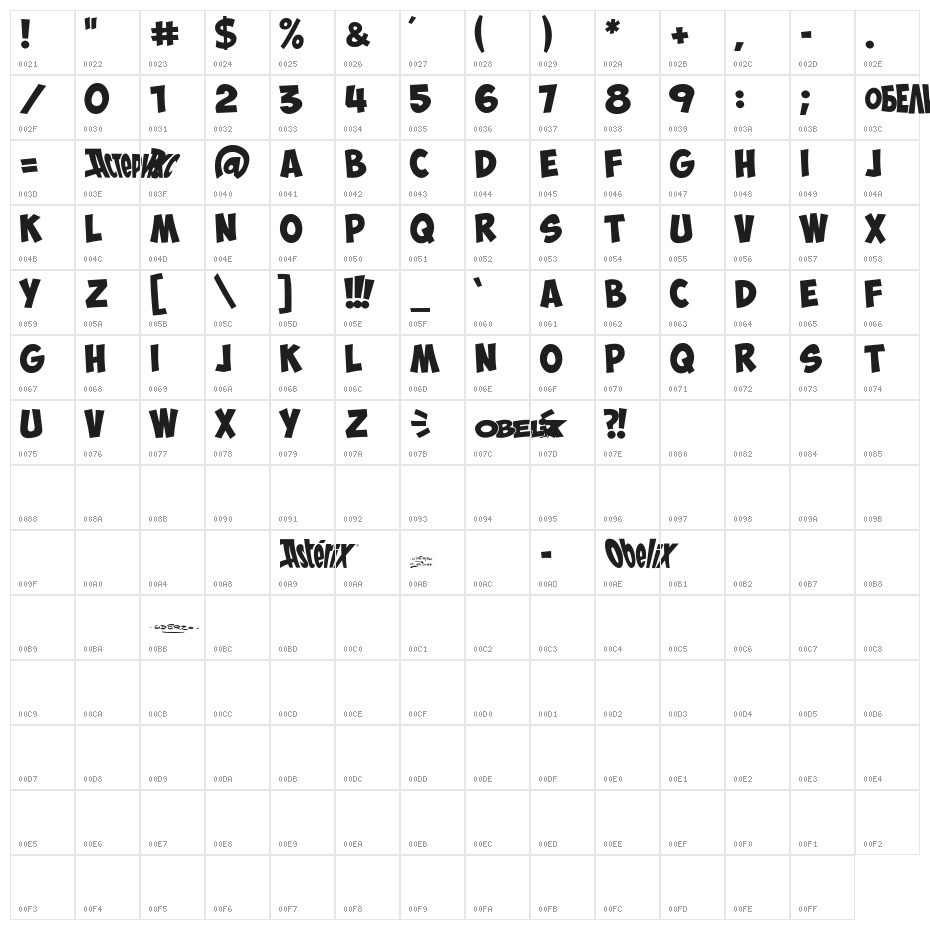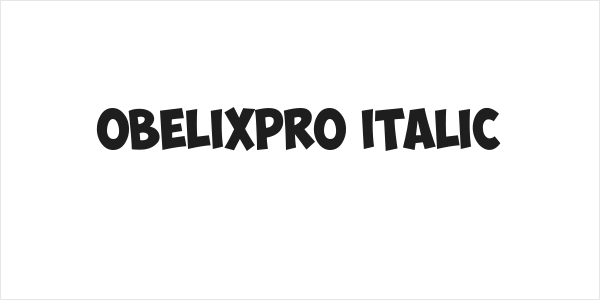
ObelixPro Italic Font
ObelixPro Italic Description
This font features a bold and playful style with exaggerated curves and a slightly slanted orientation, giving it a dynamic and energetic appearance. The characters are wide and have a strong presence, making them suitable for attention-grabbing headlines and designs. The uppercase and lowercase letters maintain a consistent style, with rounded edges and a sense of movement. The numbers and special characters follow the same bold and lively design, ensuring uniformity across all text elements.
| Overall Style | Playful, Energetic |
| Proposed Projects | Ideal for comic books, children's books, playful branding, and eye-catching posters. |